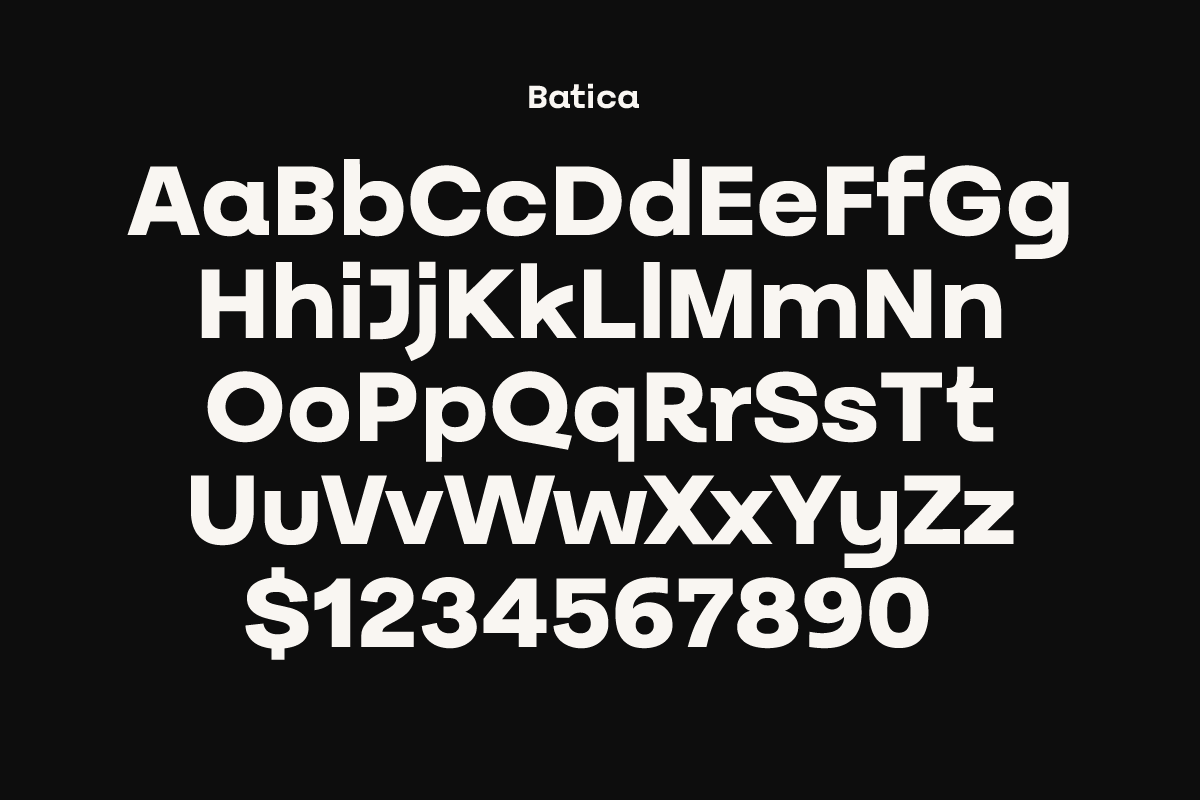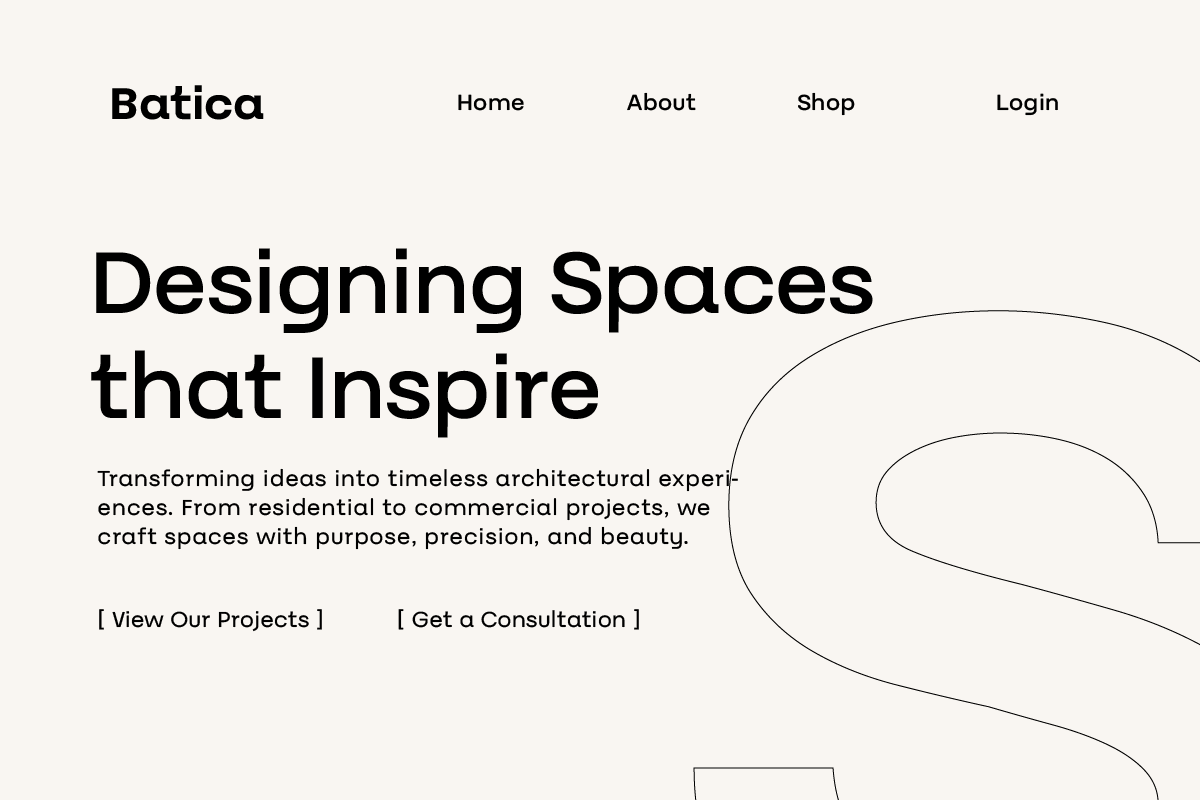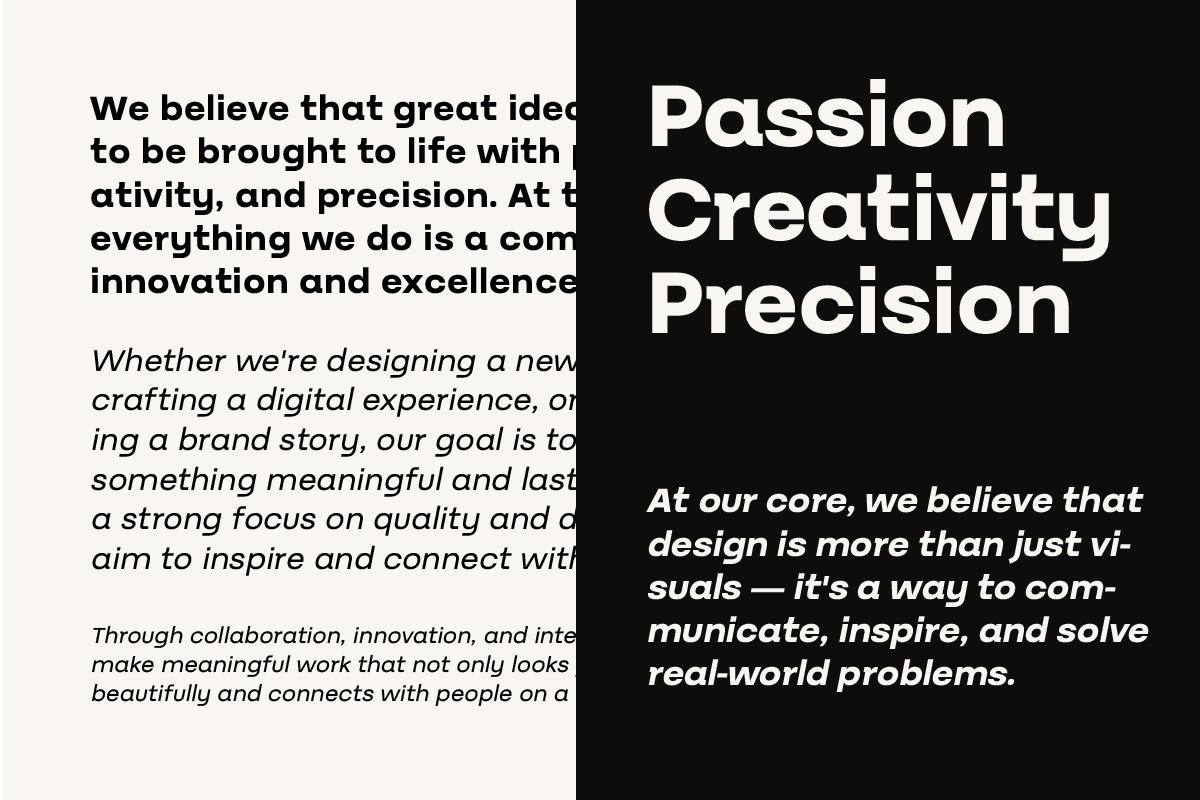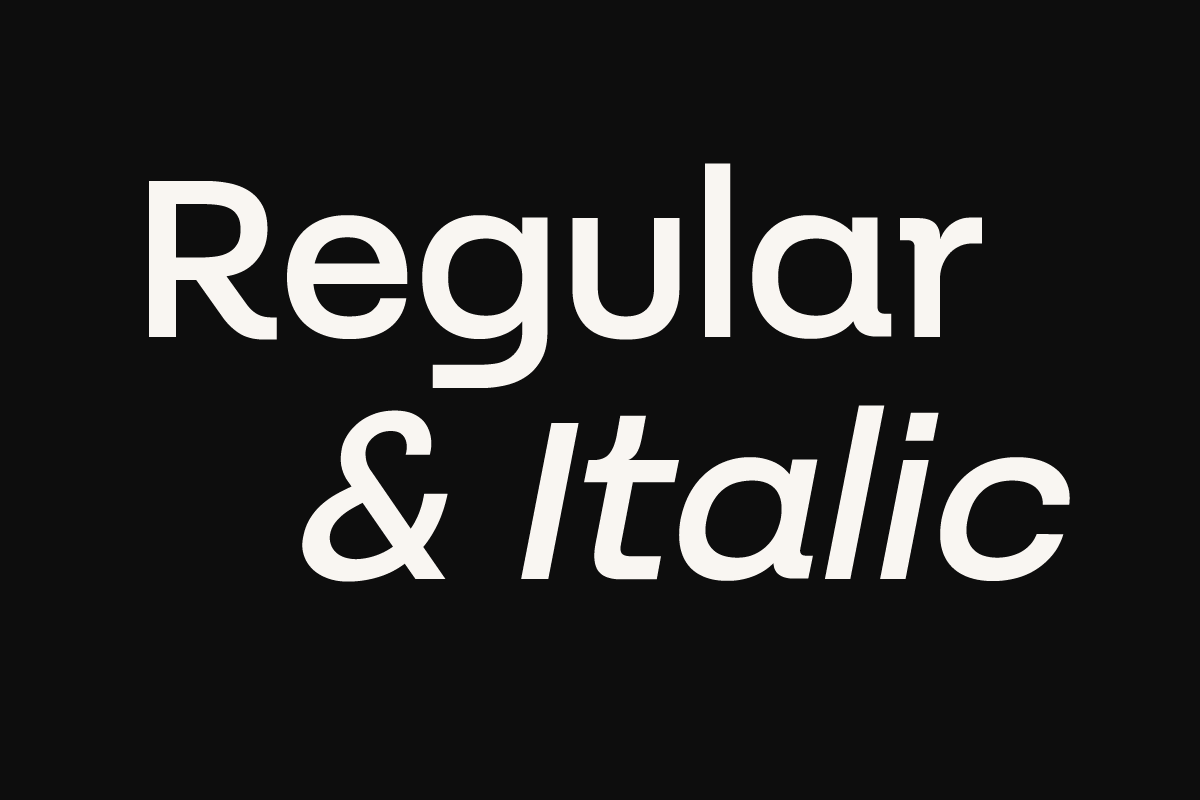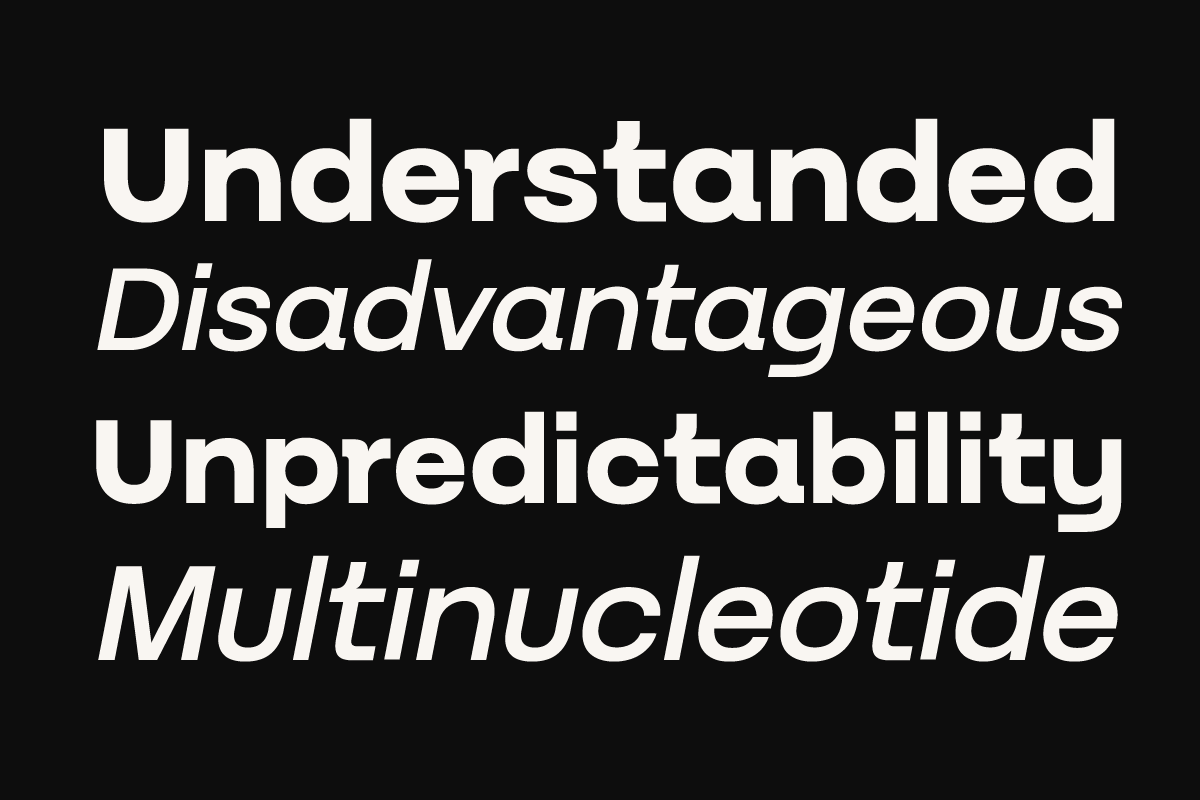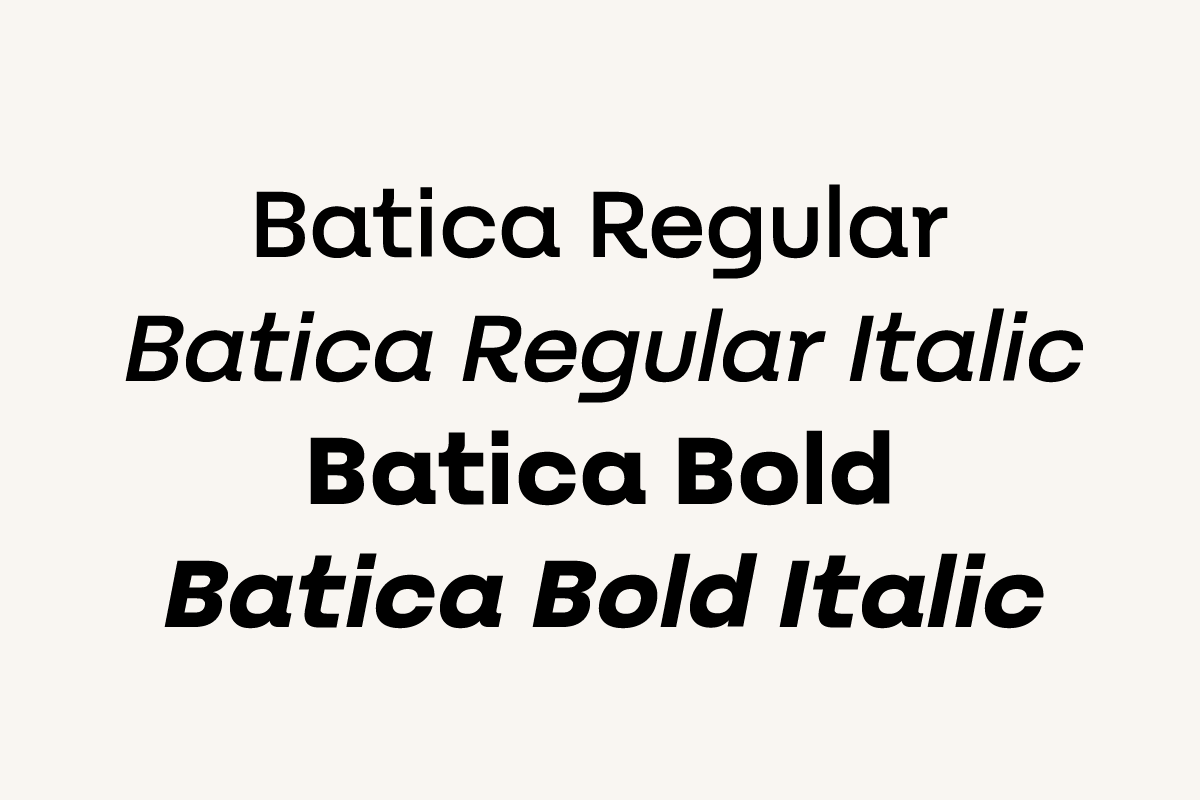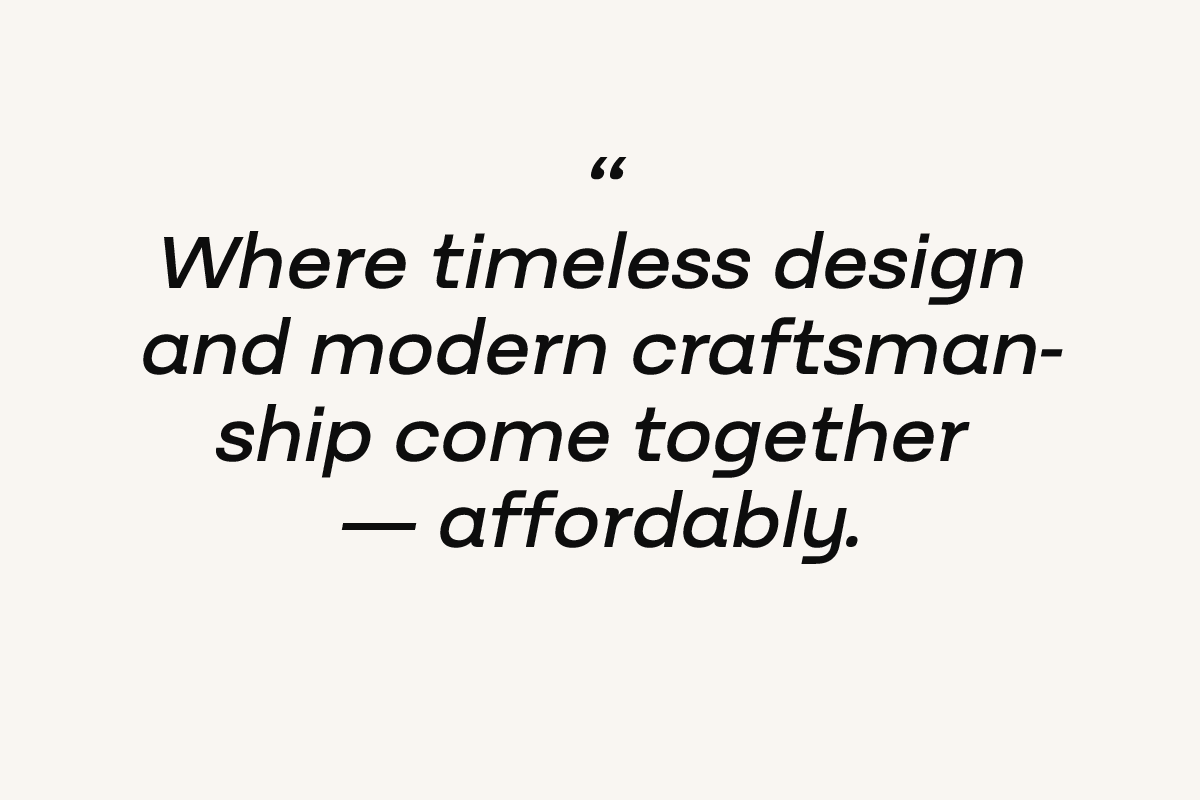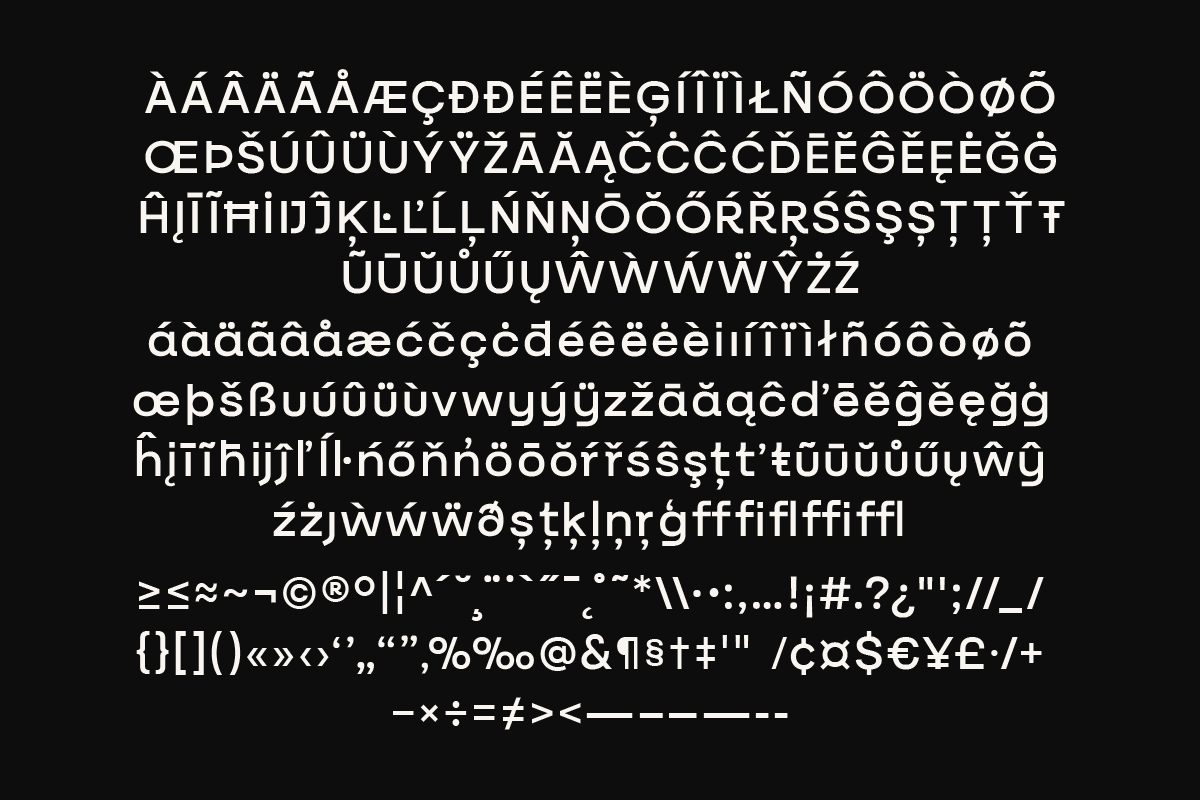
Batica – Modern Geometric Sans Serif
Batica is a modern sans serif font family featuring a clean geometric style, crafted for designers who prioritize clarity and minimalism. With 4 essential styles—Regular, Italic, Bold, and Bold Italic—this versatile typeface is ideal for a wide range of design applications including branding, logos, websites, packaging, and editorial layouts.
Designed with balanced proportions and smooth letterforms, Batica delivers high legibility and a sleek, professional aesthetic. Its minimalist construction makes it a perfect choice for contemporary and clean design projects, whether for digital use or print media.
- 4 Font Styles: Regular, Italic, Bold, Bold Italic
- Modern Geometric Design
- Optimized for Display & Body Text
Whether you're crafting a bold headline, a minimalist logo, or a clean UI design, Batica adds a refined and modern look to your typography.